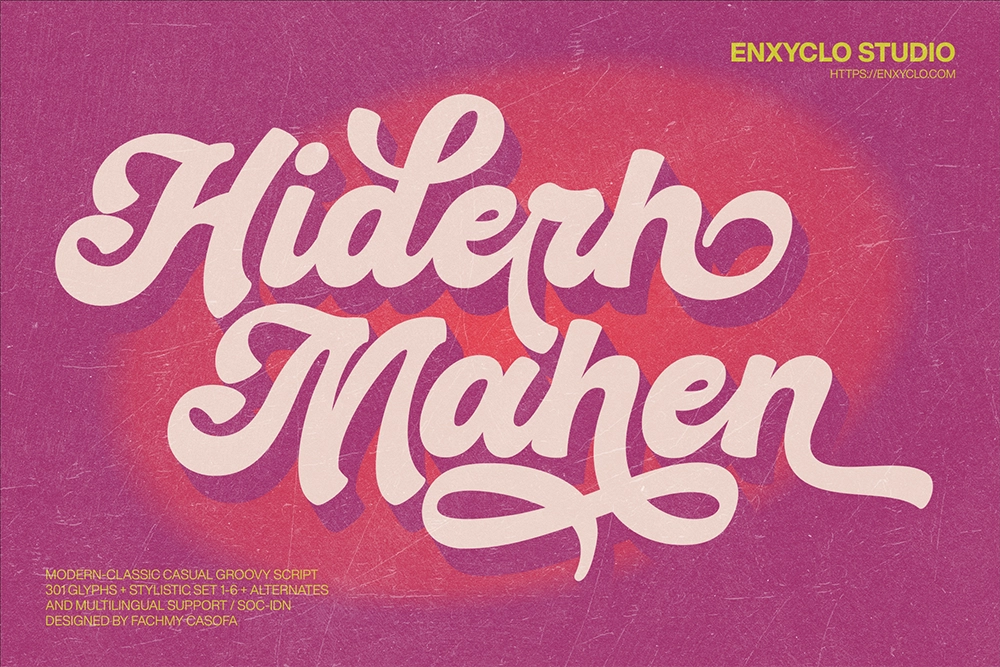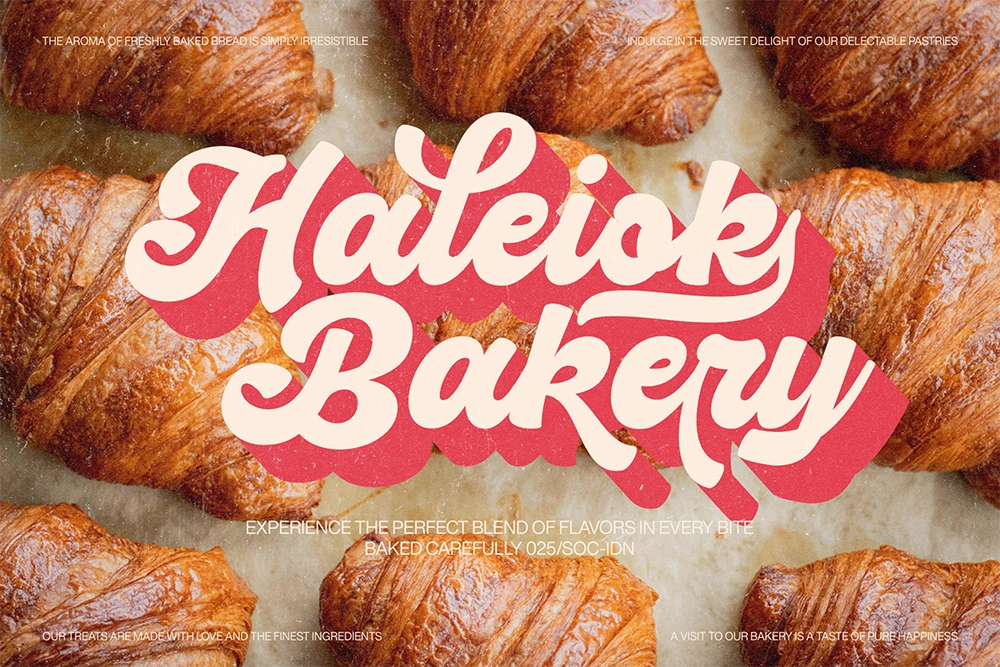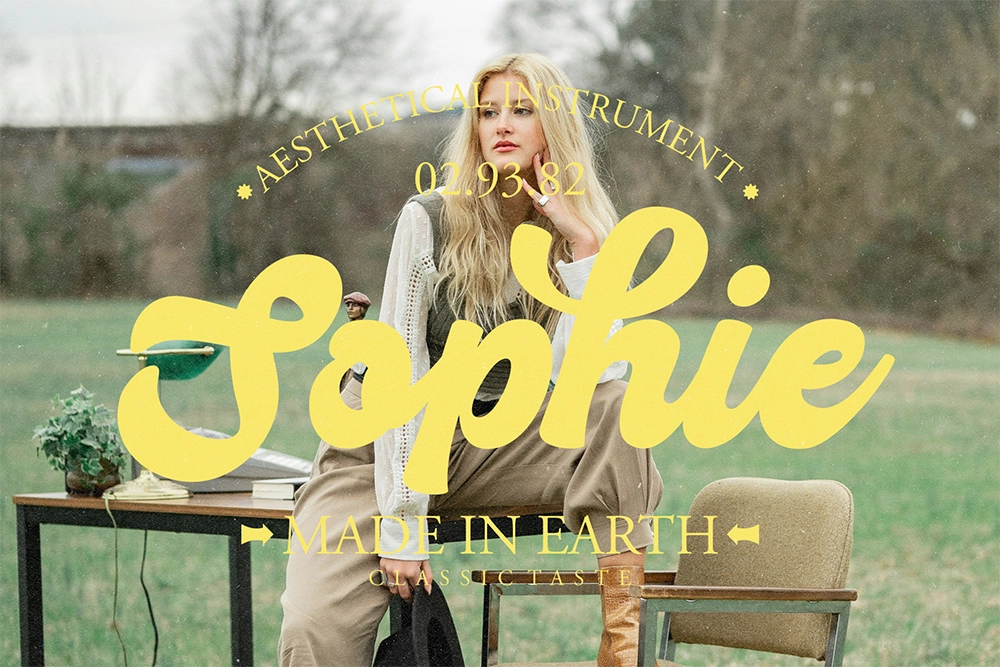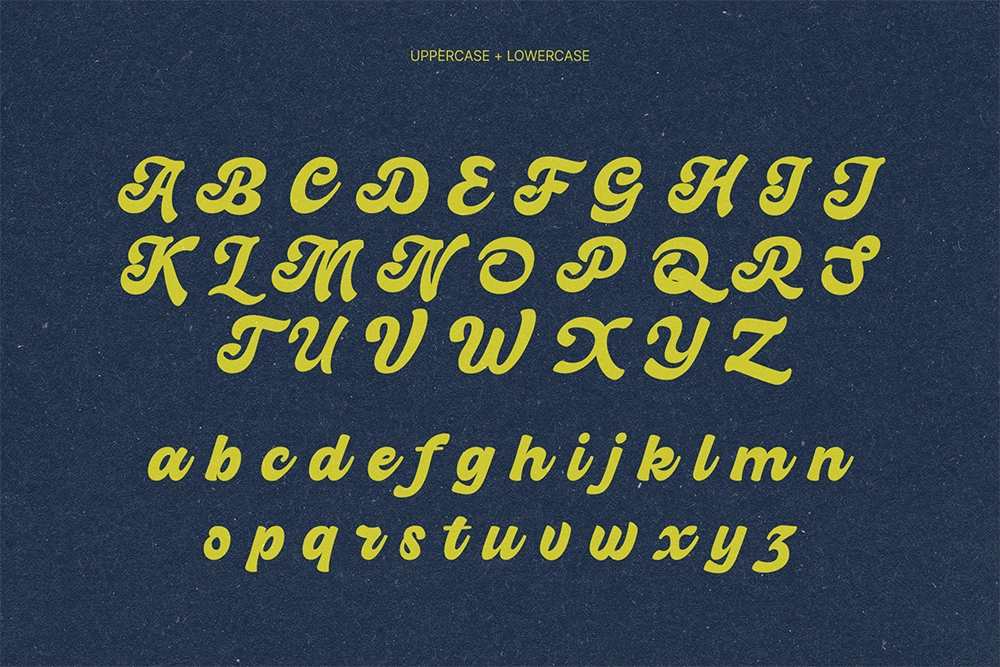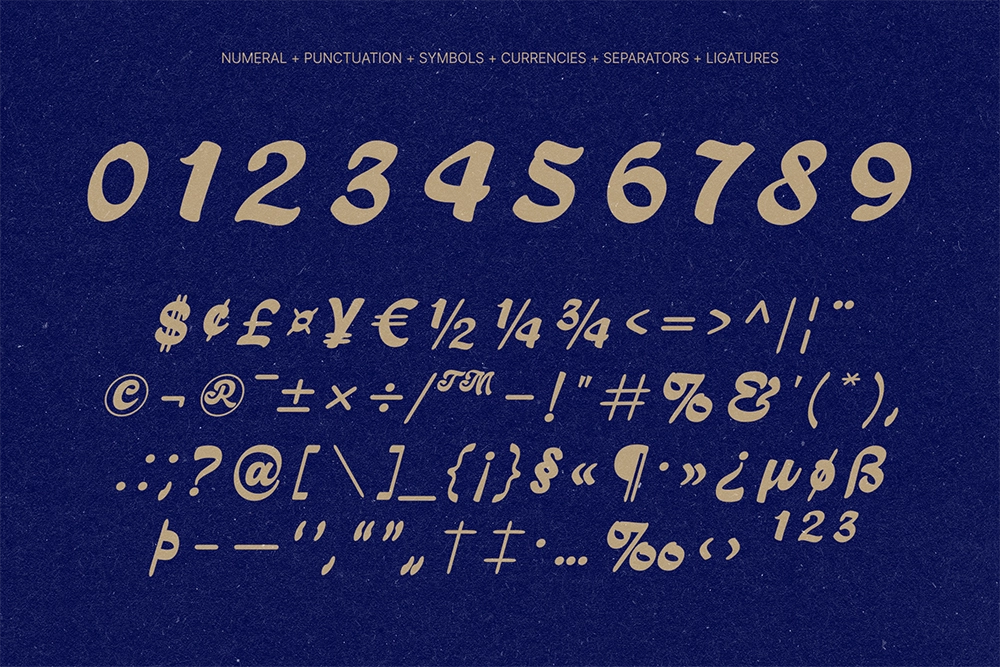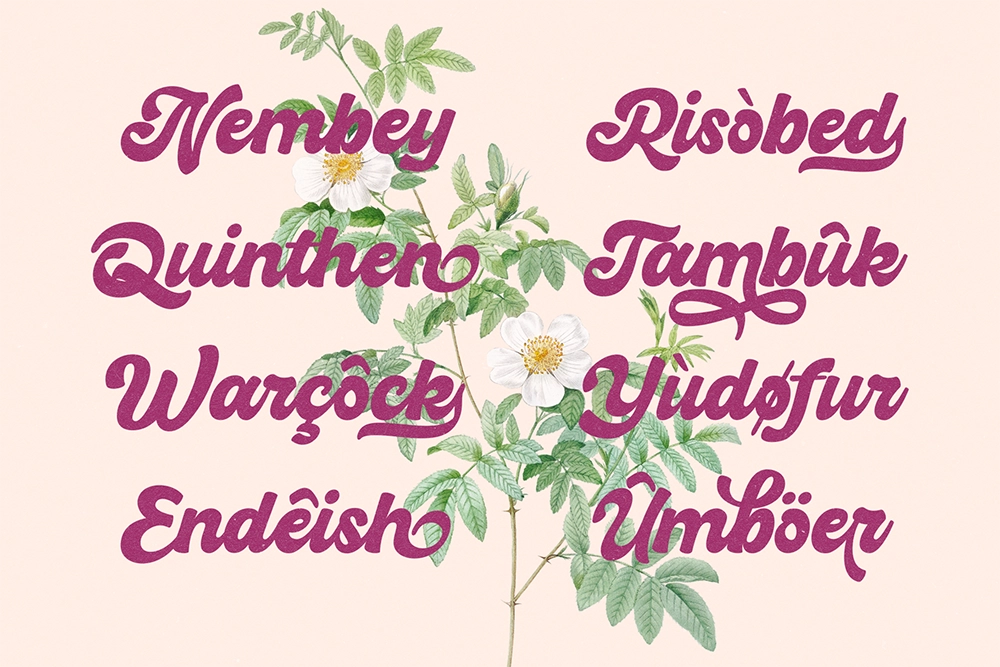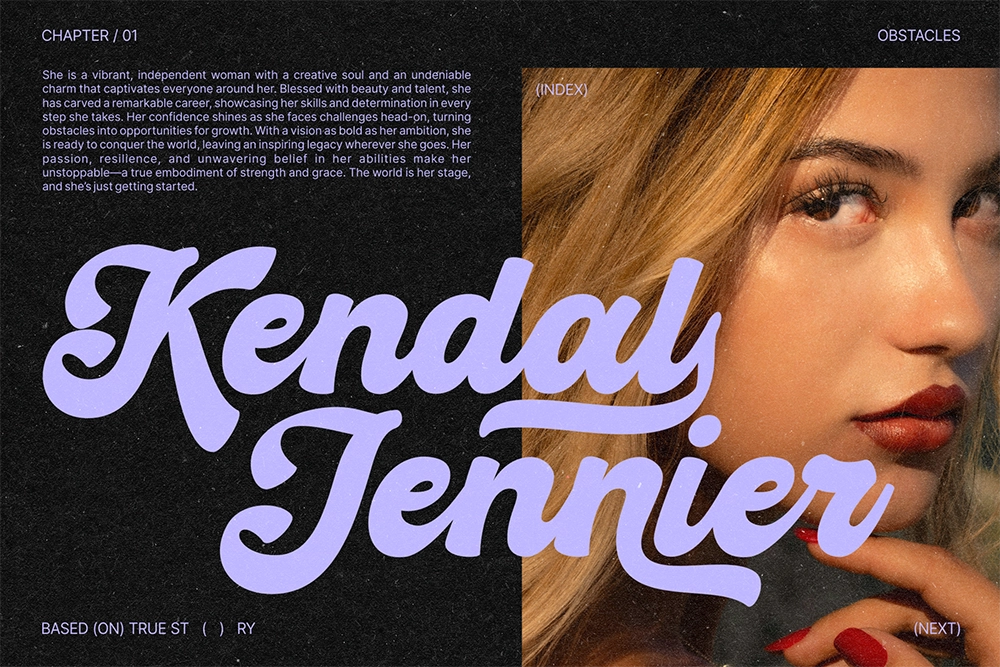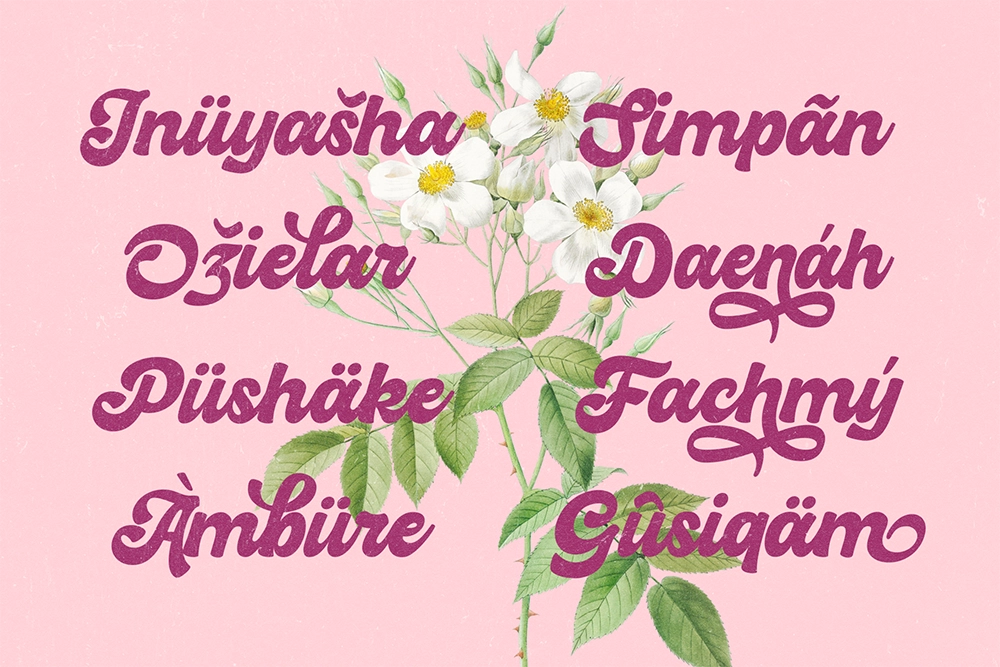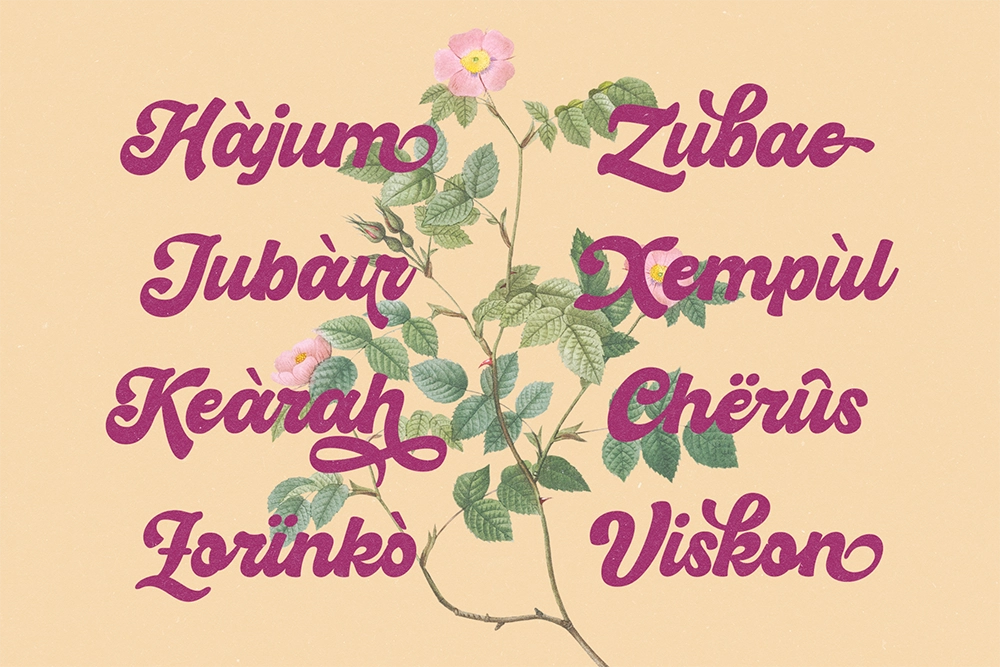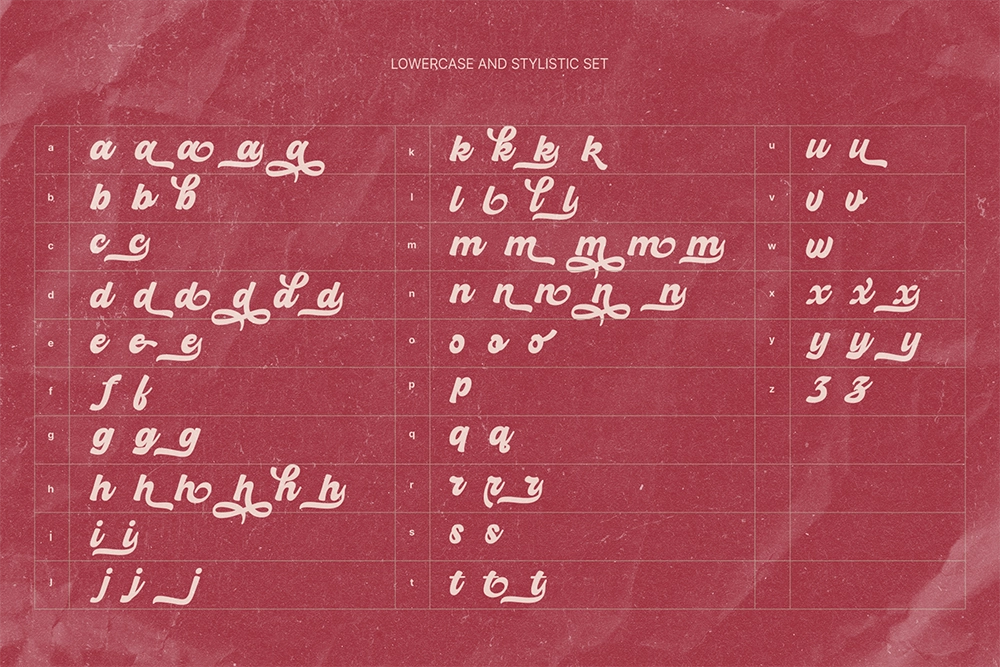
Hiderh Mahen - Groovy Script Font
Hiderh Mahen – Groovy Script Font is a stylish retro-inspired script typeface that blends nostalgic charm with modern elegance. Featuring bold, flowing curves and expressive letterforms, this font captures the spirit of classic groovy typography while maintaining a contemporary and versatile structure. Its smooth rhythm and decorative variations give designs a lively and charismatic personality.
Crafted for creative impact, Hiderh Mahen performs beautifully in headlines, posters, branding, digital ads, and editorial layouts. The font includes stylistic sets, alternates, and ligatures that allow designers to build distinctive typographic compositions with a retro yet polished feel. Whether used for logos, packaging, or creative campaigns, Hiderh Mahen brings a bold, expressive touch that makes any design stand out.
• 301 Unique Glyphs
• Stylistic Sets 1–6
• Alternates & Ligatures
• Uppercase & Lowercase Characters
• Numerals, Punctuation & Symbols
• Groovy Retro Script Style